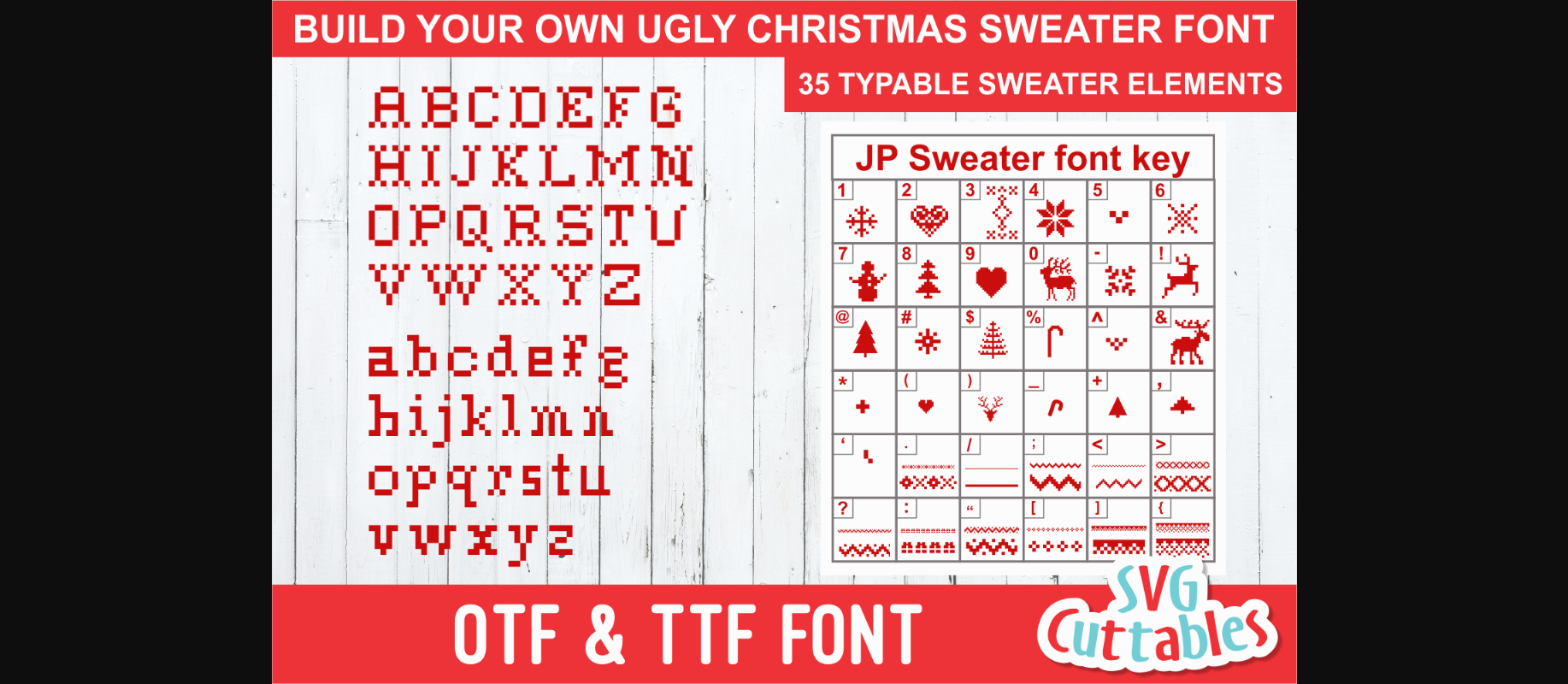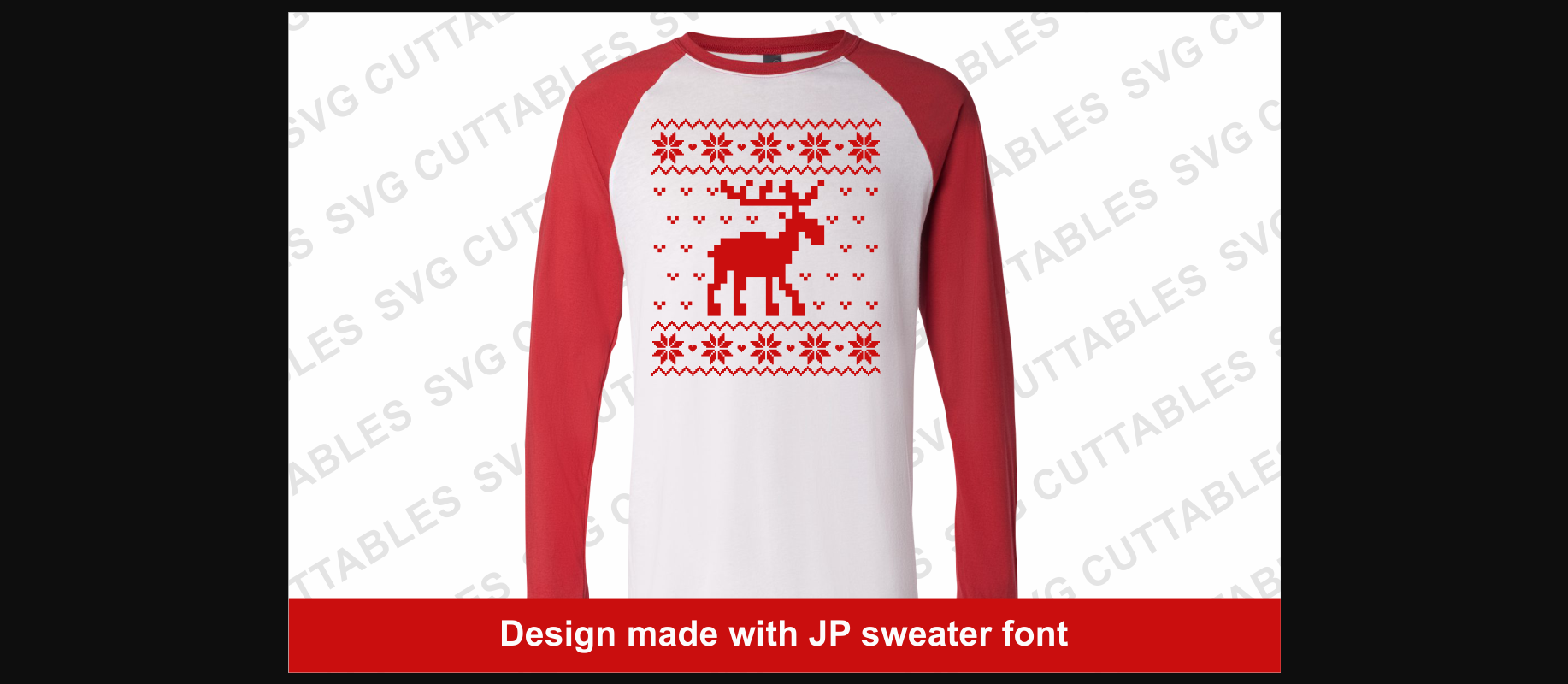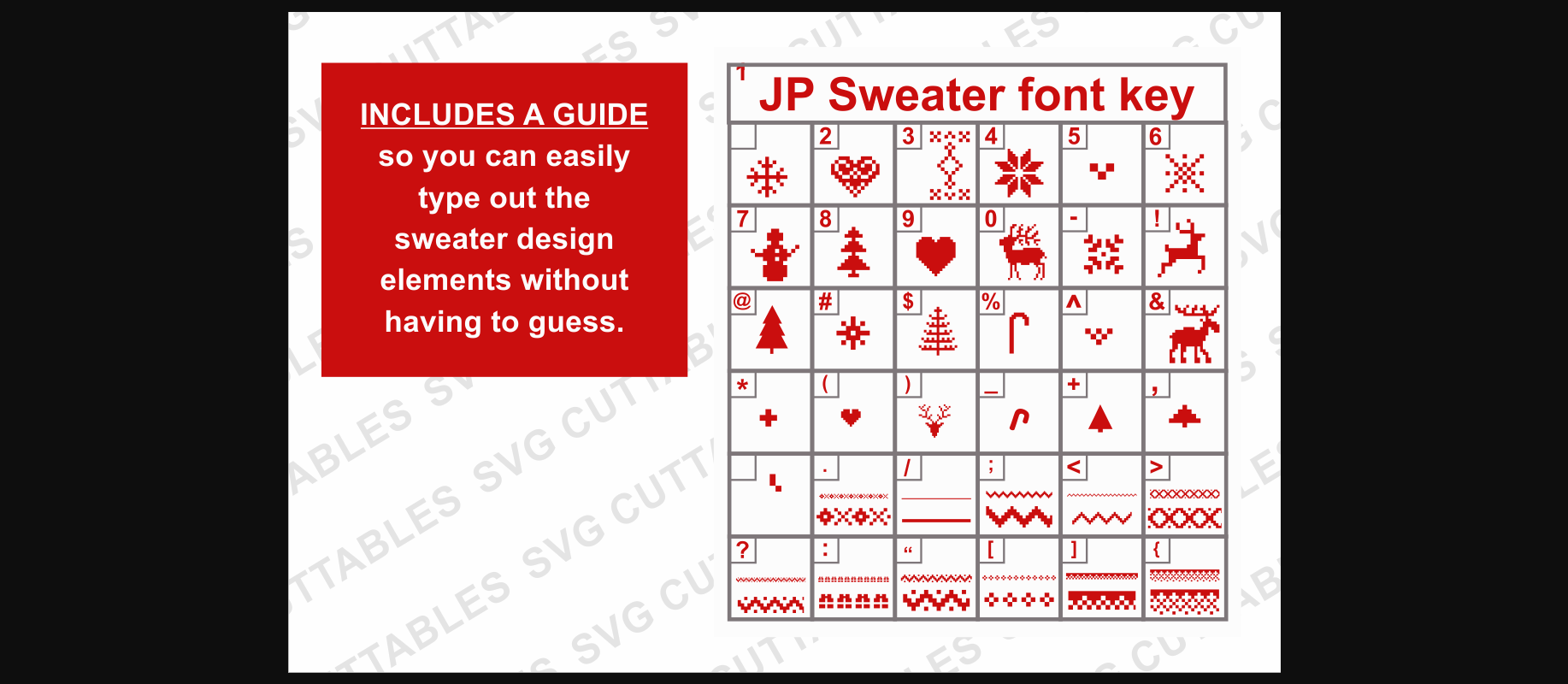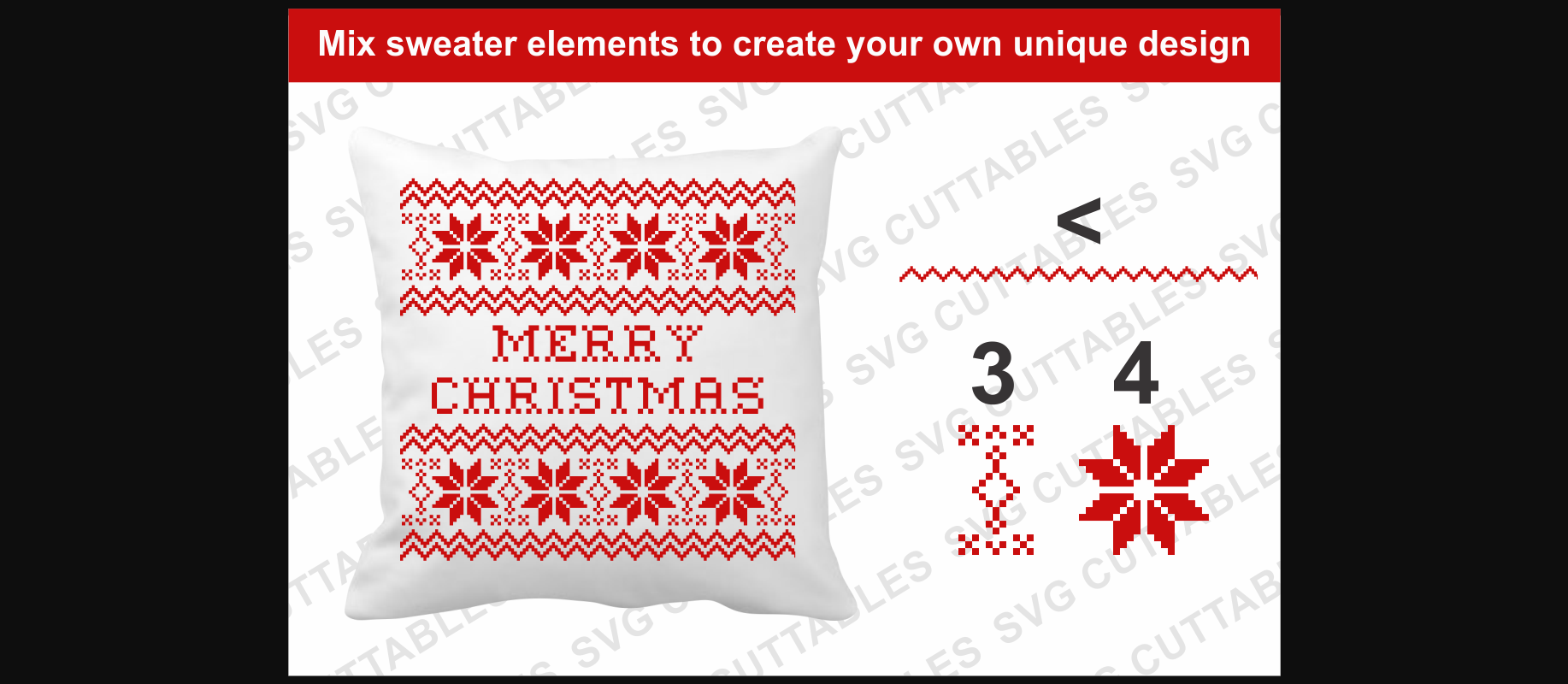
Ugly Christmas Sweater Font
About Ugly Christmas Sweater Font
Ugly Christmas Sweater is a cool and incredibly unique decorative font. Whether you’re using it for crafts, digital design, presentations, or making greeting cards, this font has the potential to become your favorite go-to font, no matter the occasion!